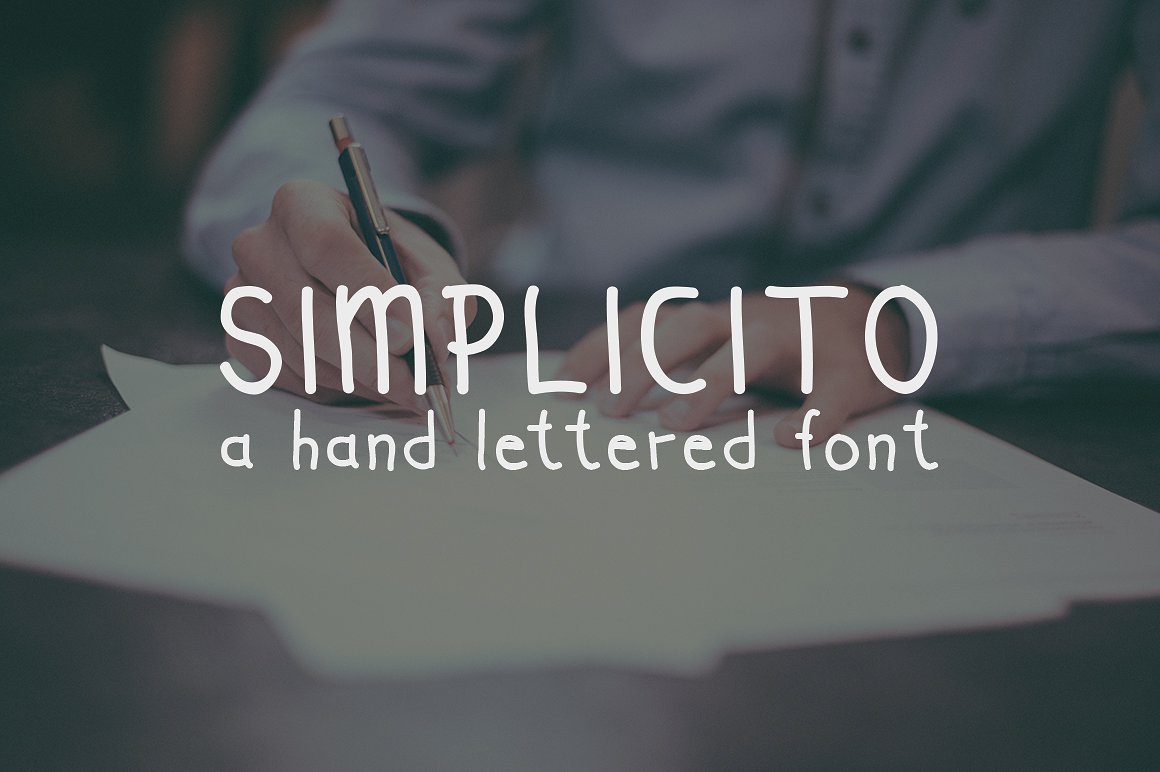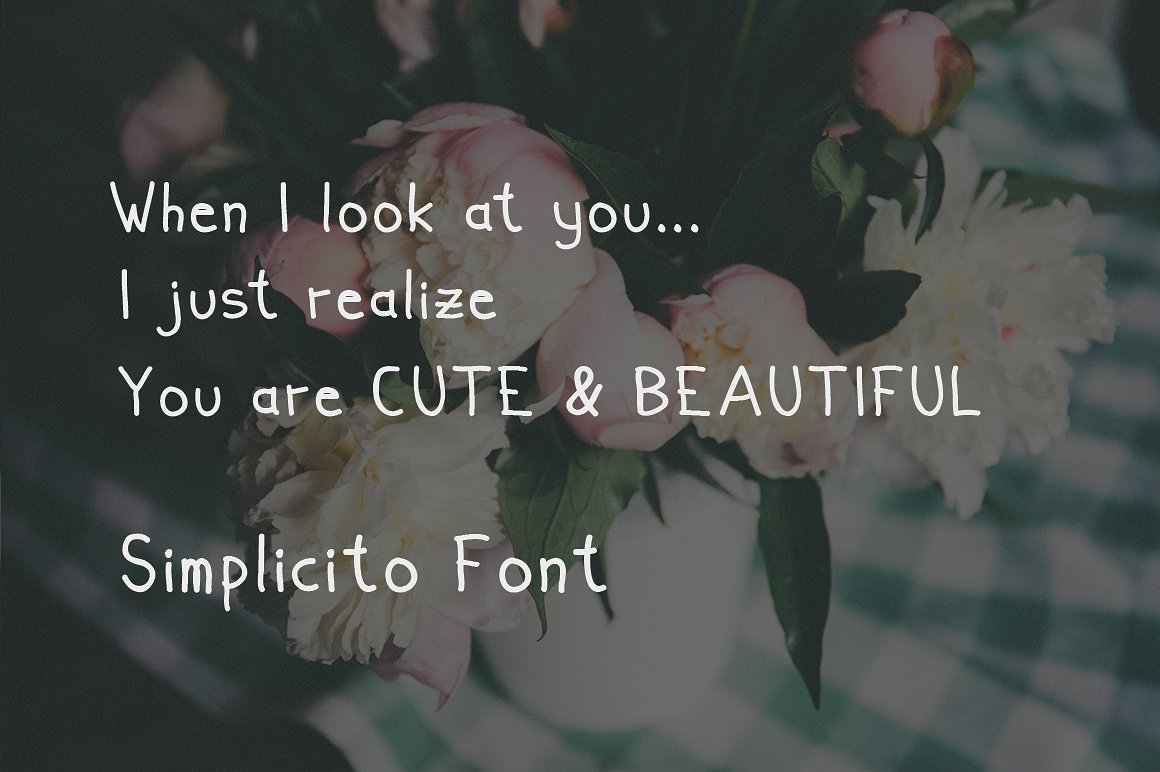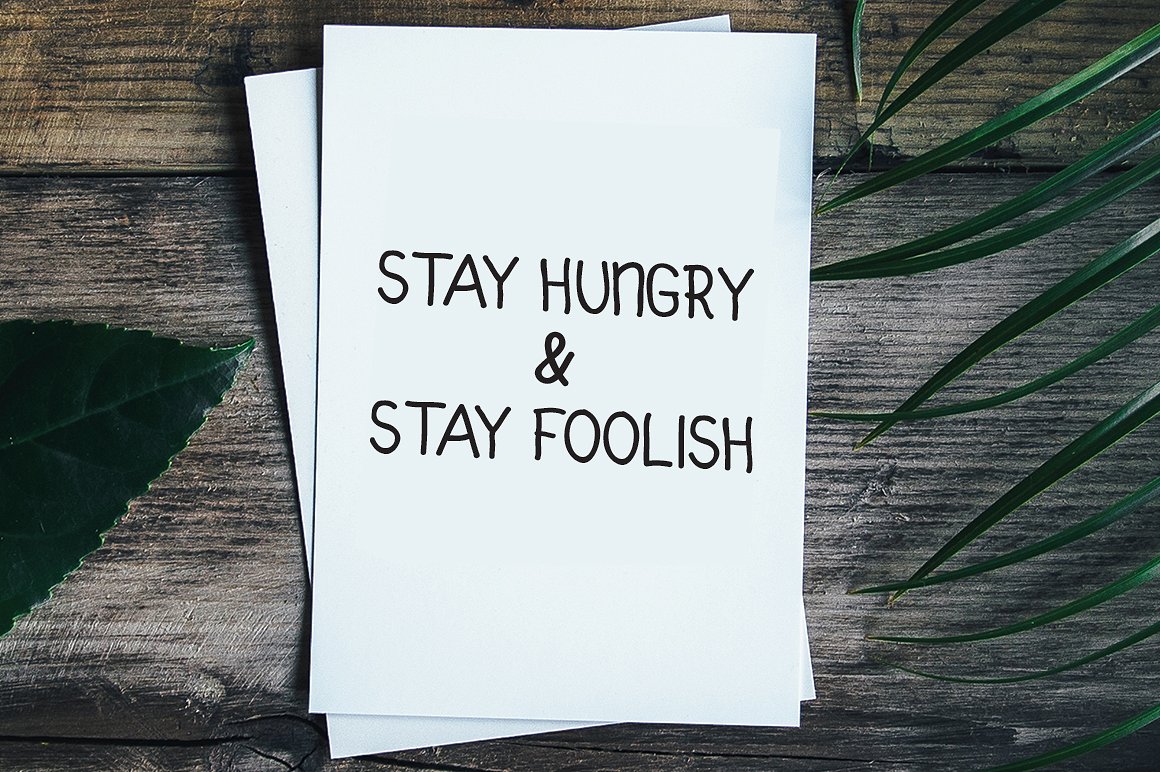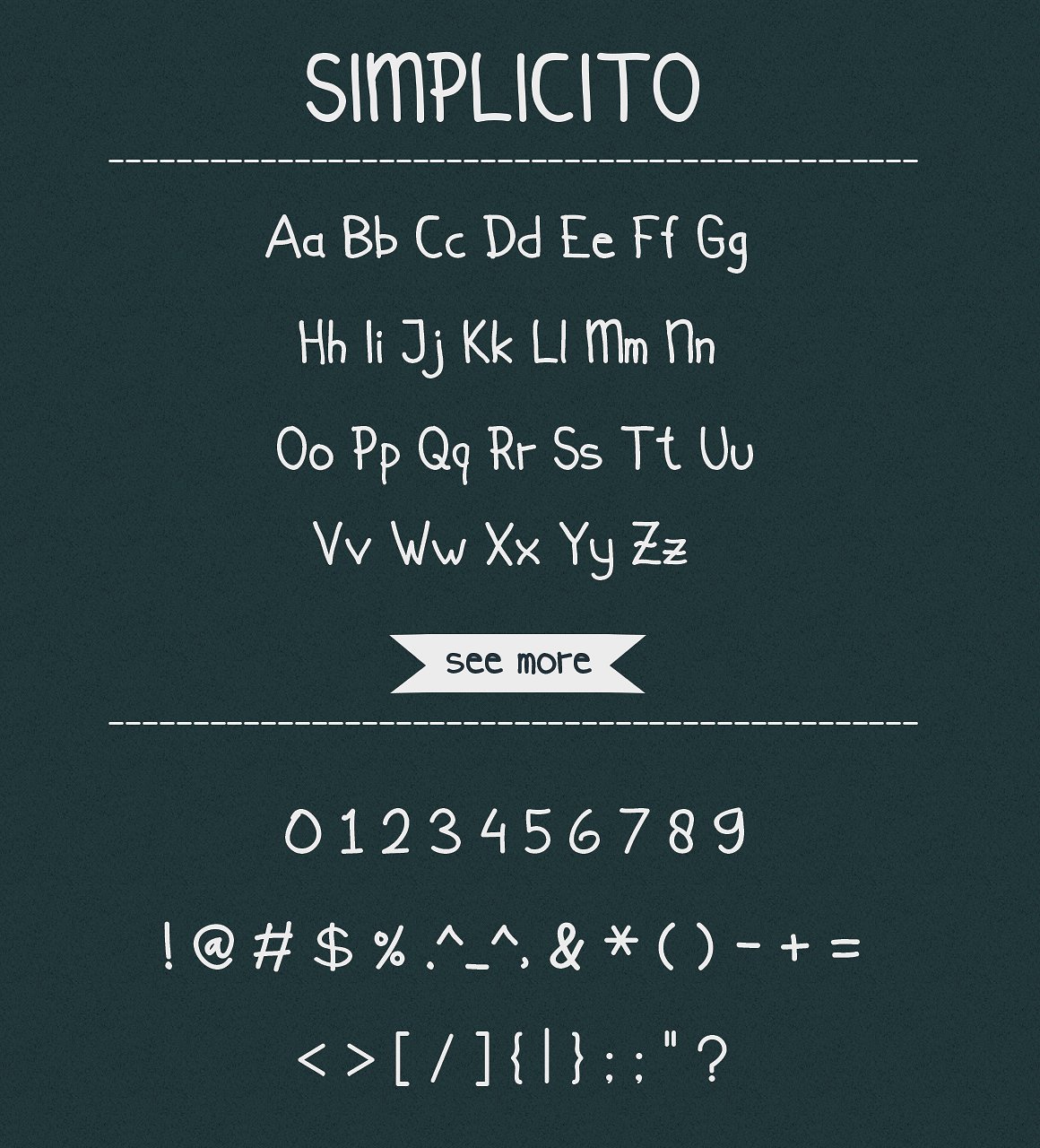
Simplicito Font
About Simplicito Font
Simplicito is a simple font that is based on carefully measured handwriting. This font is intended to add some uniqueness and charm to your designs.